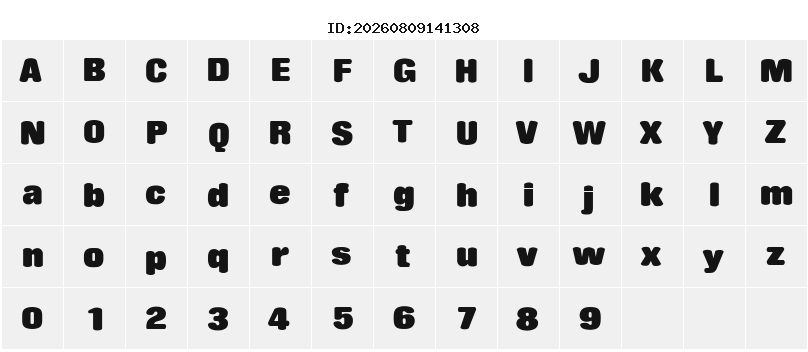
About PatriciaBecker.ttf
PatriciaBecker.ttf is a modern, elegant sans-serif font designed for ultimate readability and visual harmony. Perfect for branding, headlines, web design, and print materials.